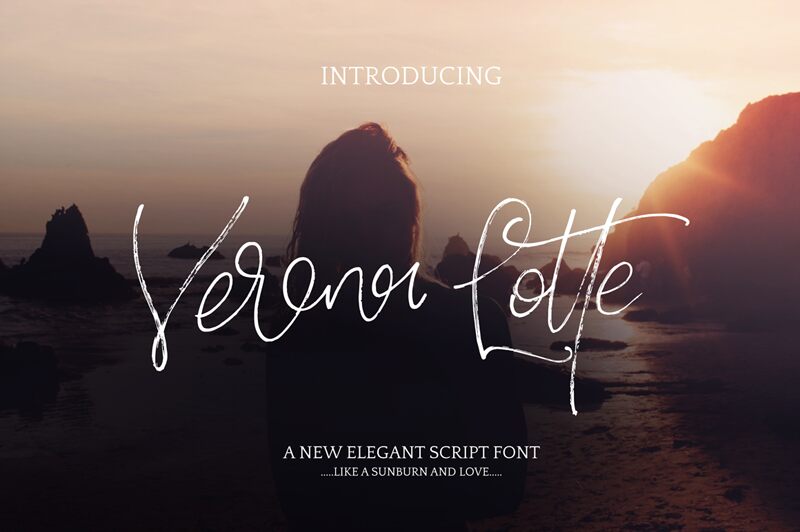
VeronaLotte
Verona lotte is a hand brushed typeface 100% accessible with multilingual support. It's ideal for signature logos, t-shirts, magazines, social media, restaurant menus, greeting cards, invitations, weddings, headers and much more.